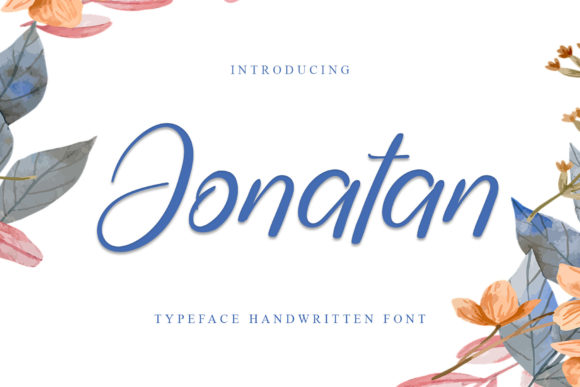
**Jonatan: A Timeless Handwritten Font for Unforgettable Designs**
Welcome to the world of Jonatan, a captivating handwritten font crafted by the talented hands of Flower. Designed to evoke the timeless elegance of penmanship, Jonatan beckons you to create designs that leave an everlasting impression.
**A Symphony of Styles for Your Tattoo and Design Dreams**
Indulge in a symphony of styles with Jonatan's versatile nature. Perfect for capturing the intricate beauty of tattoos, this font also breathes life into logos, branding, and the most heartfelt quotes. Its elegant curves and playful flourishes intertwine seamlessly, adding a touch of individuality and emotional depth to every word.
**A Font that Ignites Creativity**
Let your imagination soar as you wield Jonatan's expressive power. The unique character of each letter dances across the page, inviting you to craft designs that speak volumes. Its timeless charm transcends the boundaries of trends, ensuring that your creations will stand the test of time.
**Experience the Beauty of Handwritten Art**
With Jonatan, the essence of handwritten art comes alive on your screen. Its carefully crafted strokes evoke the intimacy and authenticity of pen on paper, bringing a touch of warmth and humanity to your digital designs.
**Unleash the Power of Expression**
Unlock the power of personal expression with Jonatan. Whether you're designing a heartfelt tattoo that tells your story or creating a captivating logo that resonates with your brand's soul, Jonatan empowers you to communicate your message with unparalleled grace.